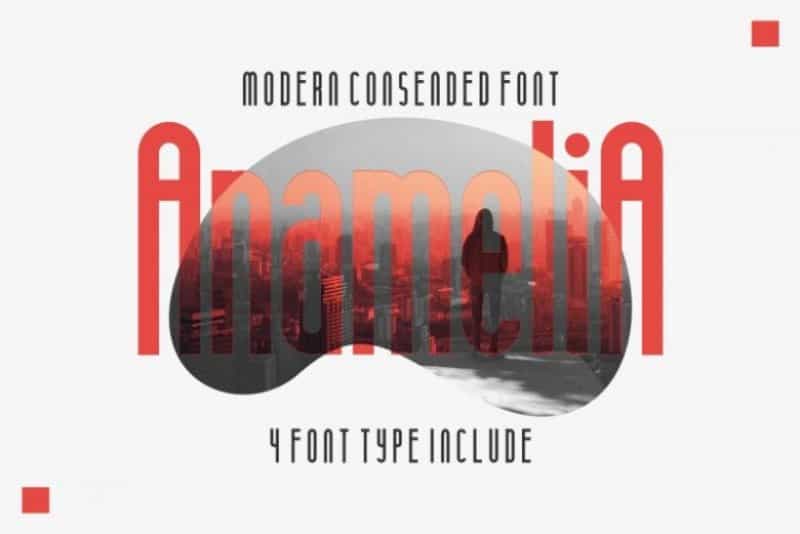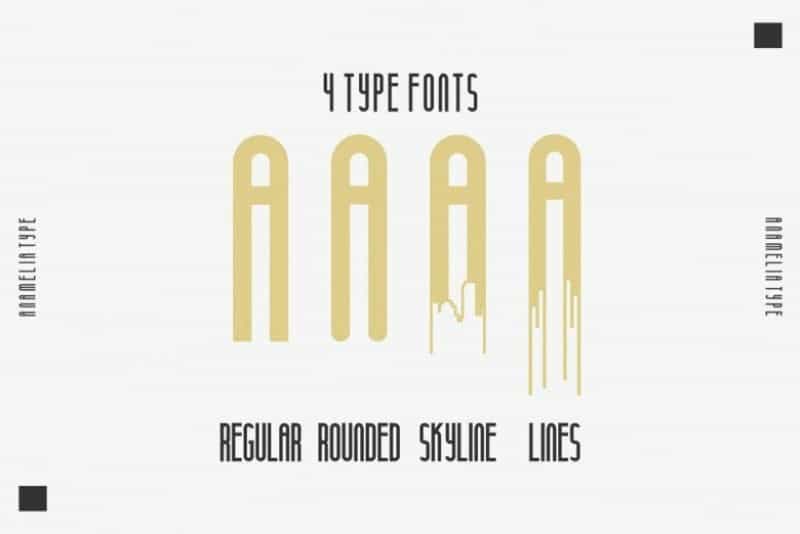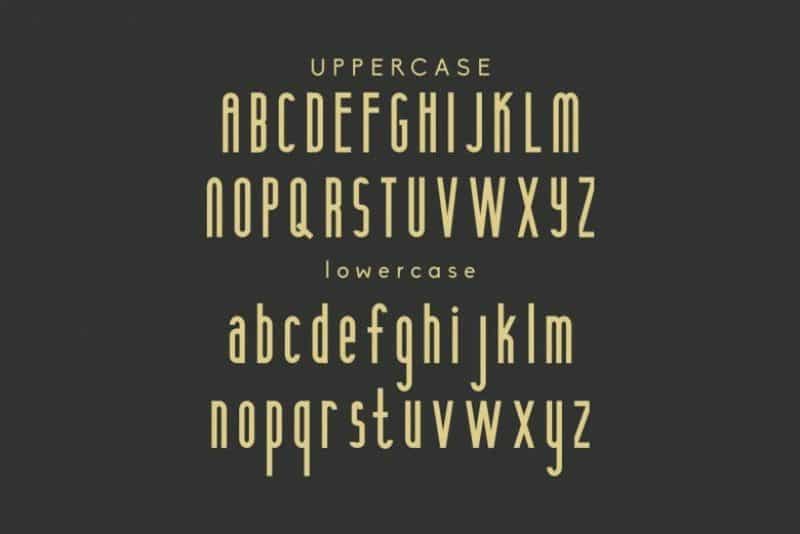
Discover Anamelia Typeface, part of the Sans Serif collection—a versatile and unique font perfect for adding a personal touch to your projects. Download it for free and enjoy crafting designs with style, from invitations to social media posts. This font is available exclusively for personal use, giving you the freedom to create without limits. Unlock your creativity with Anamelia Typeface today!
Introducing Annamelia Font! Anamelia is a unique futuristic city modern sans serif display font. Annamelia is great for branding, logo, stationery, business card, signage, flyer, brochure etc. There are many industries that is suitable for this font such as construction, real estate, services, law firm,music, salon, architect, designer etc. Thank you for checking!